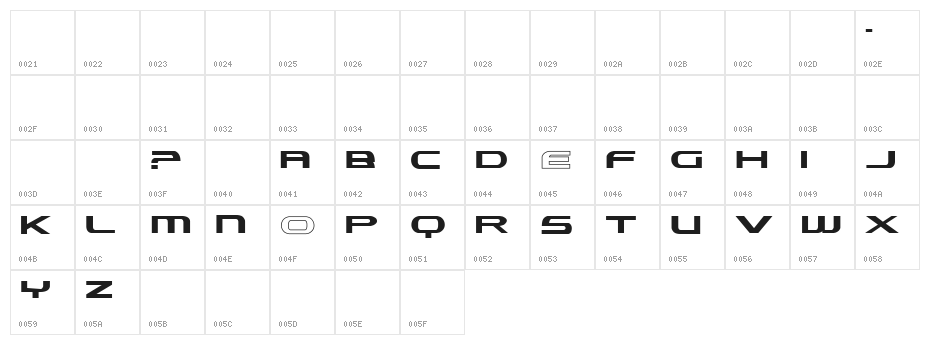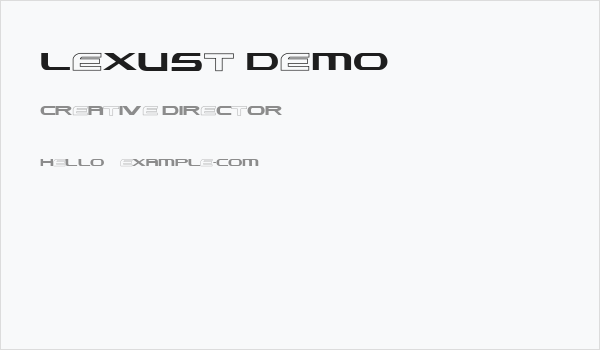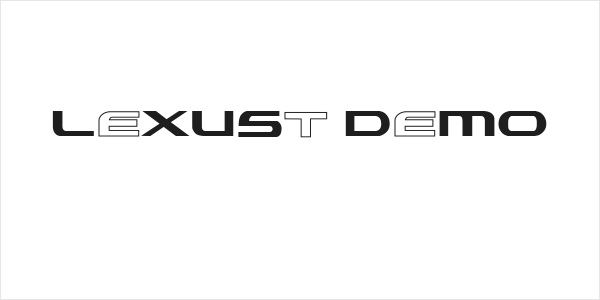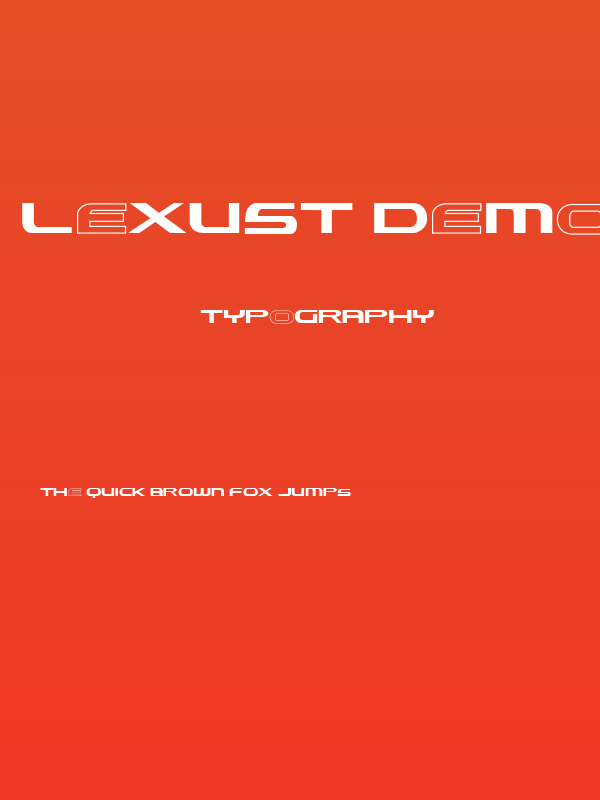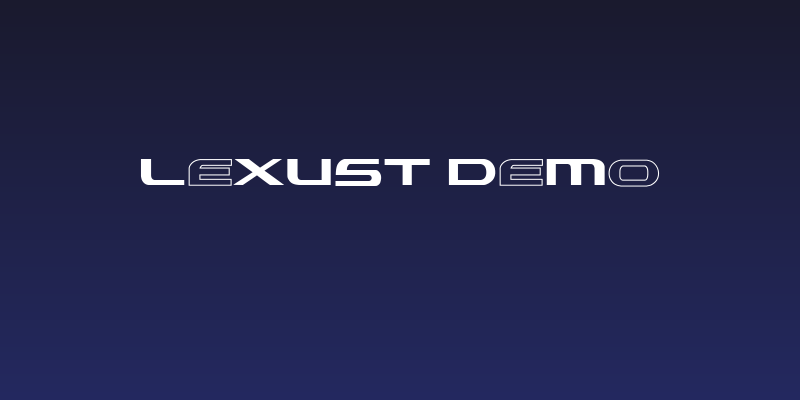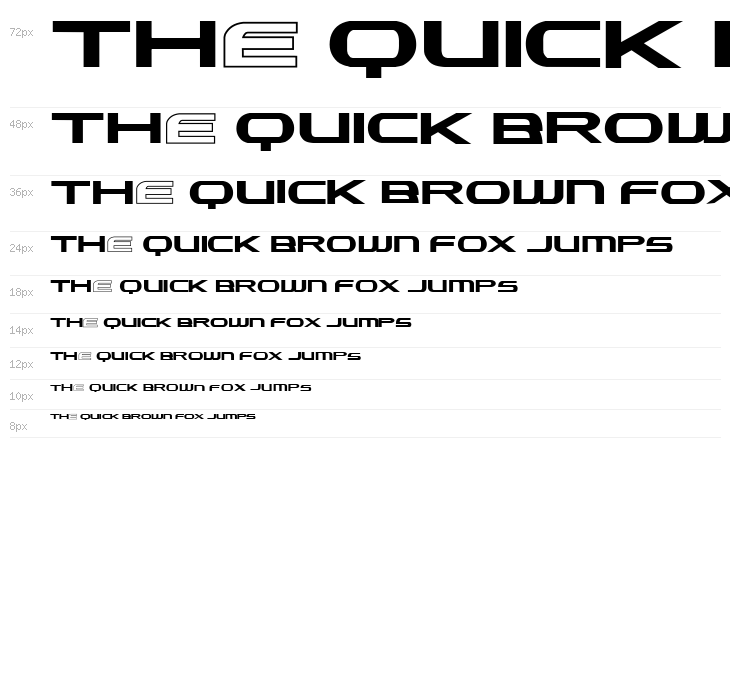
Lexust Demo Font
✎ Futuristic
| Vorgeschlagene Projekte | Ideal for technology branding, sci-fi themes, digital interfaces, and innovative product designs. |